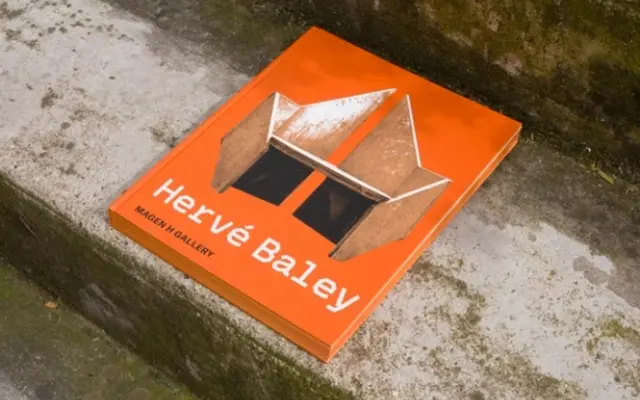
Anto Rounded
b•v-h type · André Baldinger & Toan Vu-Huu · 2022
A rounded geometric sans by André Baldinger and Toan Vu-Huu, originating from identity work for Parisian contemporary art institutions, with a smoother character than its angular sibling Anto Plot.
Designed from 2017 and released in 2022, Anto Rounded shares its skeleton with the broader Anto family but favours soft terminals over the angular geometry of Anto Plot. The family spans four weights with italics, extends into a monospaced variant and an airy display cut called Anto Rounded Air, and offers 820 glyphs per roman style with extensive OpenType features including alternate figures, circled numbers and framed numbers. Language support covers a wide range of Latin-based scripts across several hundred languages.
Inspired by early sans-serif designs like Monotype Grotesque Bold Extended, Anto Rounded applies smooth, rounded terminals to a geometric skeleton, distinguishing it from the angular sibling Anto Plot.